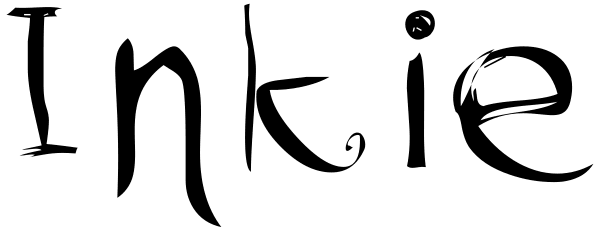
Inkie
Inkie is a hand drawn pen and ink alphabet with scratchy embellishments, and works great whenever you want a handwritten look to your art, but with a bit of extra flair. Inkie looks great both as text and as headlines.